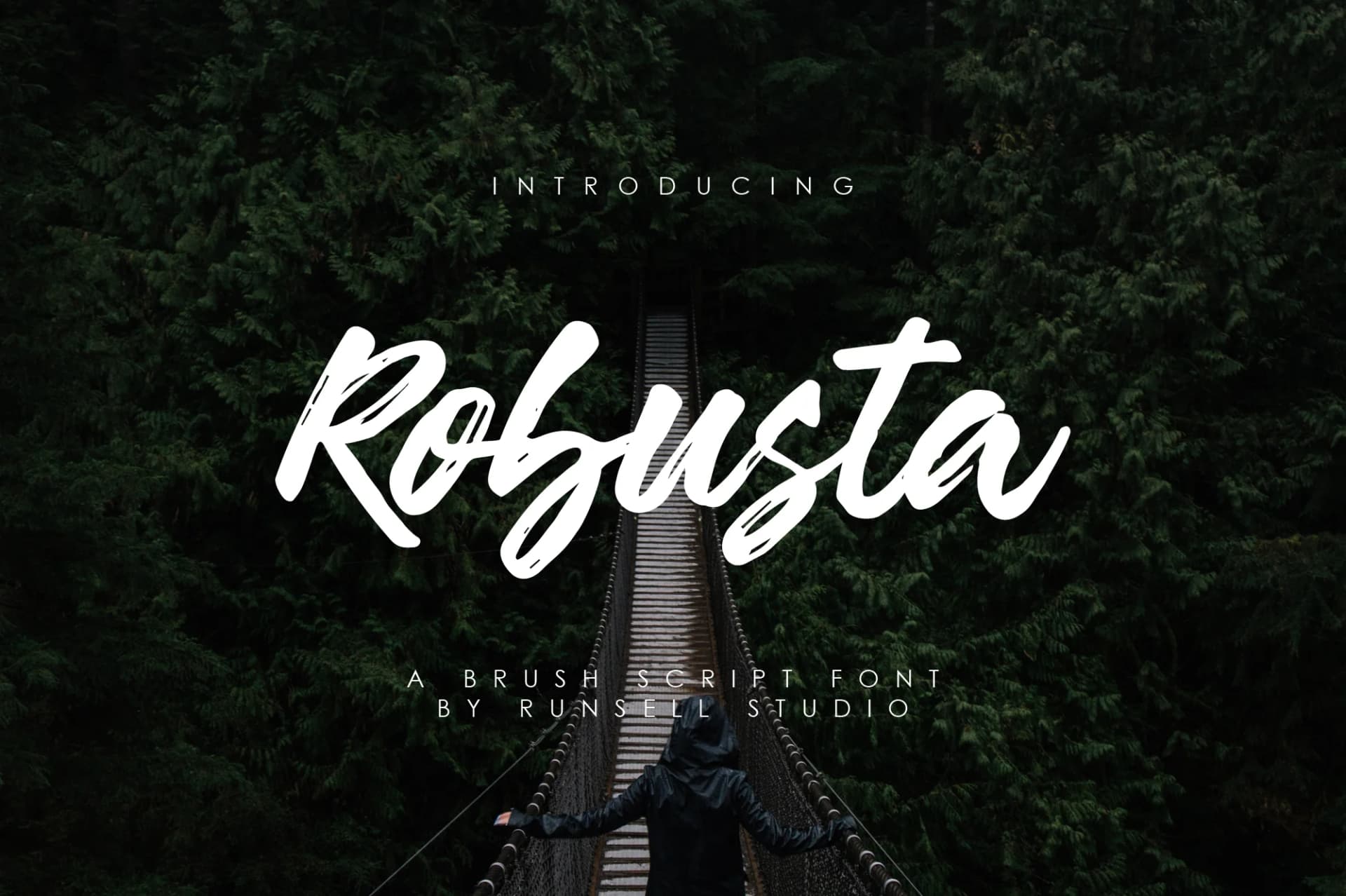
Robusta Font by Runsell Graphic is a brush script typeface that combines loose, expressive letterforms with energetic visual momentum. The design features quick-dry stroke characteristics that give each character an authentic hand-rendered quality, making it ideal for projects seeking genuine, unpolished appeal over mechanical precision. This typeface excels in athletic and action-sports branding, where its dynamic energy naturally communicates movement and vitality. Event promotion flyers, music venue posters, and youth-oriented campaign design all benefit from Robusta's contemporary character. The hand-drawn aesthetic translates beautifully to apparel graphics, skateboard deck branding, and social media content that prioritizes personality. Whether applied to packaging for emerging sports brands, concert merchandise design, or podcast artwork, Robusta brings bold presence while maintaining legibility across various applications and scales. The font includes swash variations that expand its stylistic possibilities. Designers frequently apply this typeface across unexpected contexts, indie game interfaces, gaming stream overlays, alternative music branding, anywhere strong personality and visual directness matter more than formal restraint. The energetic letterforms work particularly well when paired with minimalist layouts, allowing the typography itself to anchor the design. Robusta's character-driven approach makes it valuable for brands seeking to communicate innovation and edge. Discover Robusta Font on Creative Fabrica.
Robusta Font is a script font that shines as a display or heading face. Pair it with a clean sans-serif or serif font for body text β the contrast creates a clear hierarchy while the two styles stay balanced and easy to read.